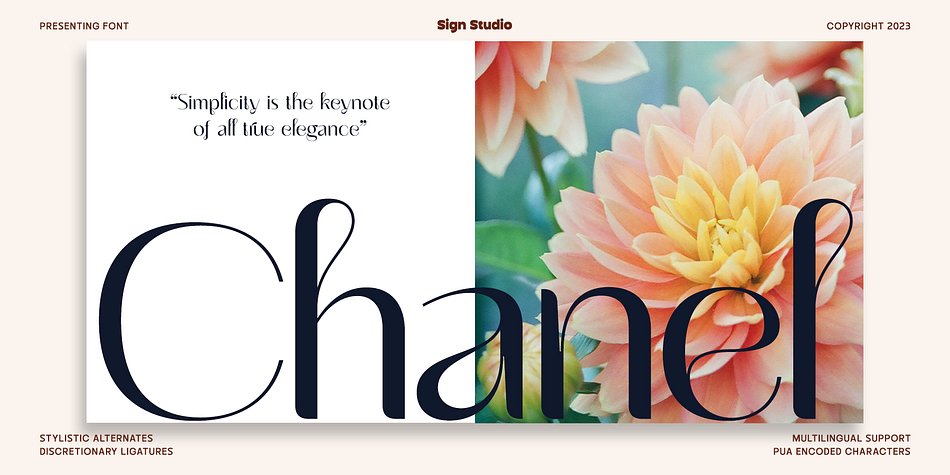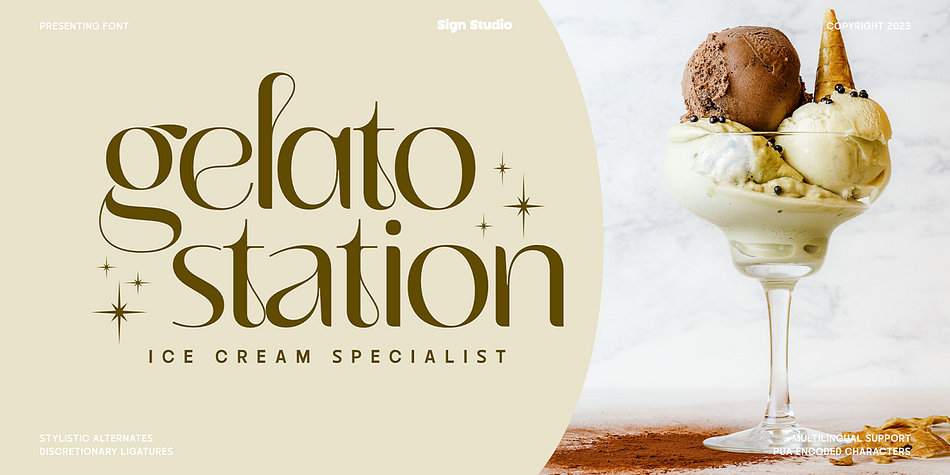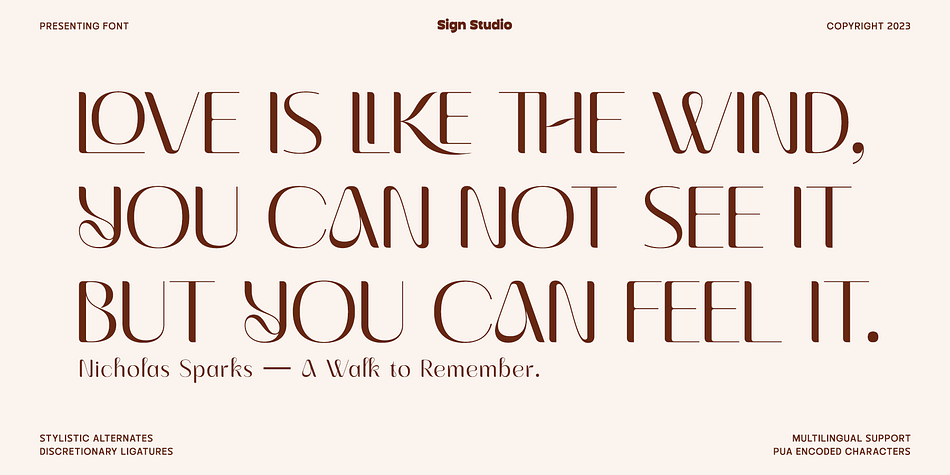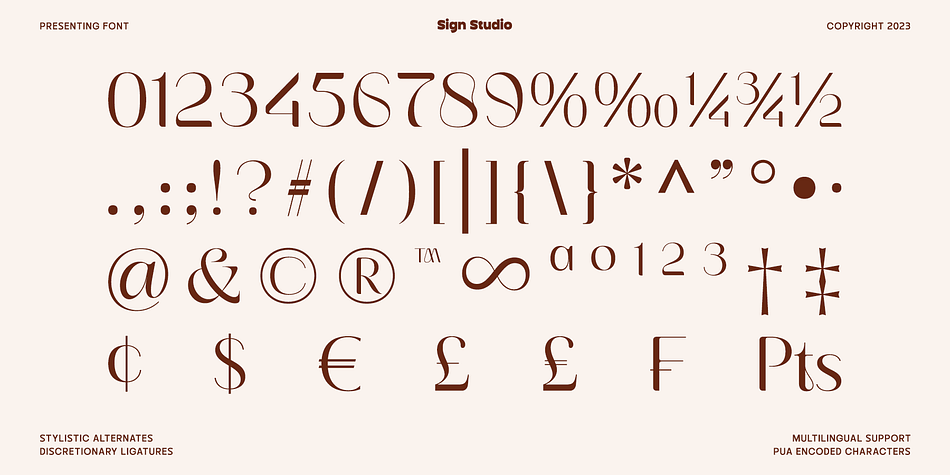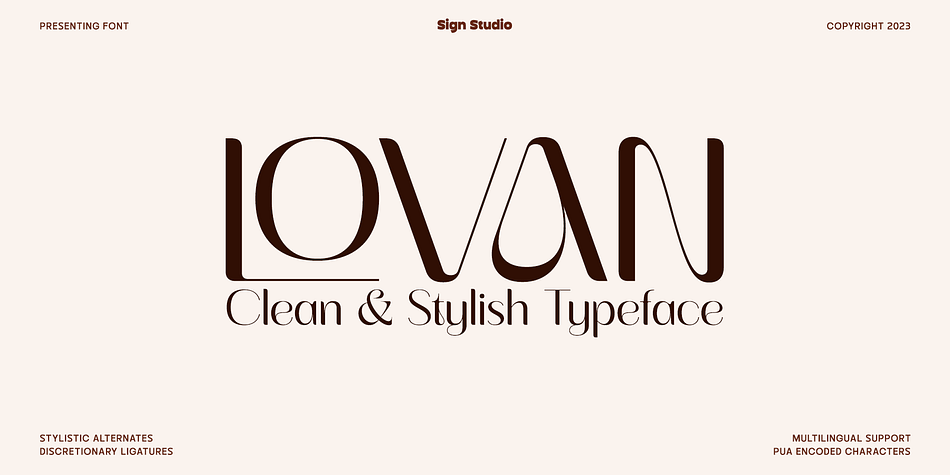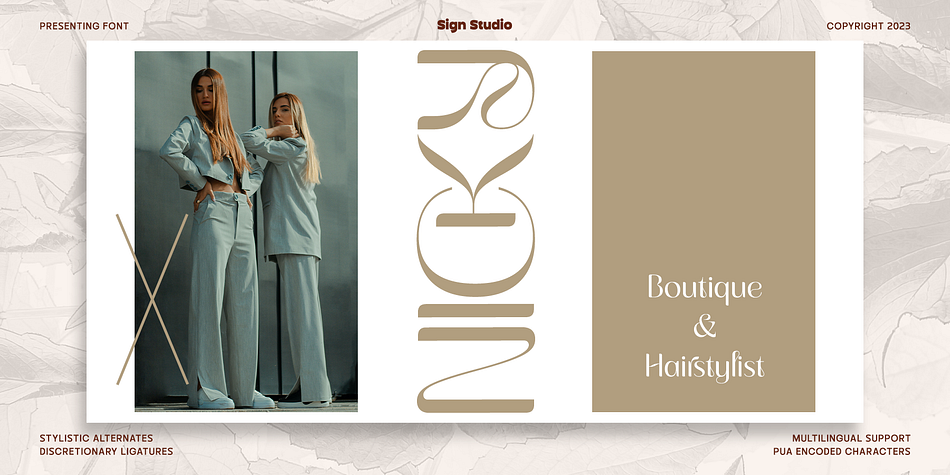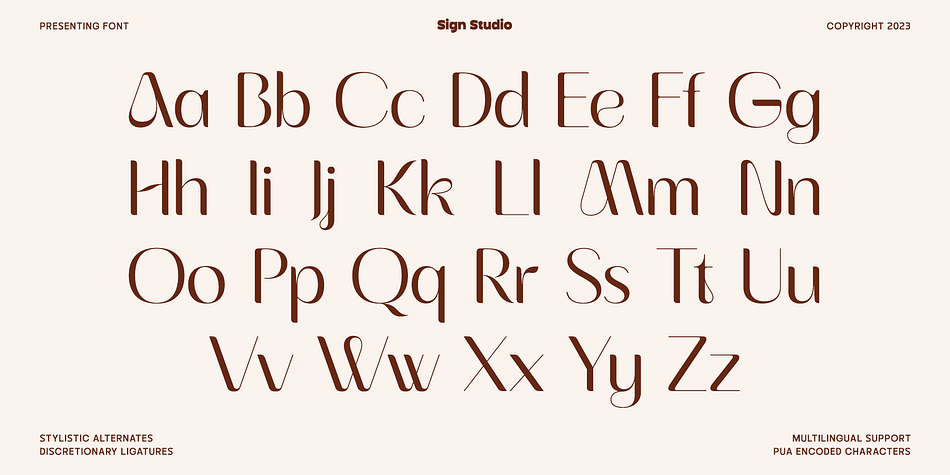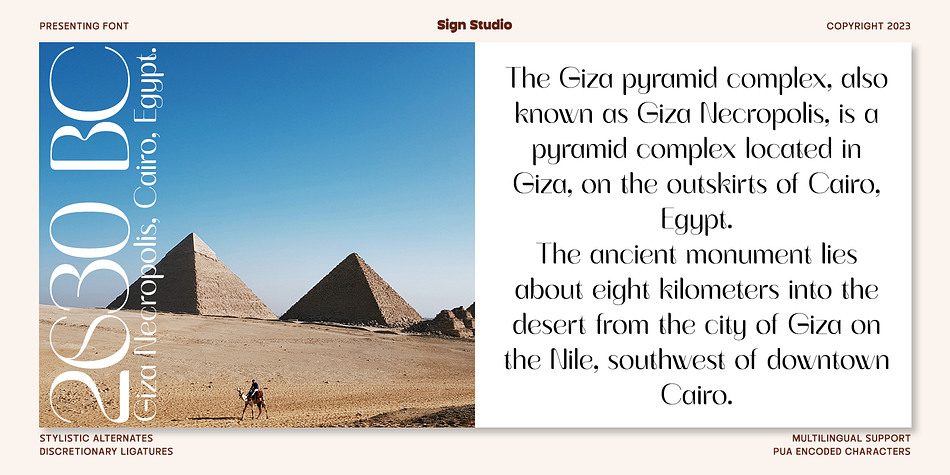
Lovan
Lovan is a display sans font family published by Sign Studio.
Lovan - a Font with a love feel.
A font created to act as a display font. The characters are created uniquely and have high contrast to make them original. The work of deep thought.
Stylish and light will create a balance of casual and elegant typography, good harmony between characters. Lovan clearly has high aesthetic value to be combined with various designs, especially those with a Feminism theme. Even though this font is intended for decoration, it still maintains readability, which is of course the main point of Sign Studio’s work.
Useful OpenType features: Standard Ligatures, Discretionary Ligatures, Alternative Carachters.
The spacing between characters has also been arranged properly through the Kerning process, making for neat text writing.
Support for over 80 languages makes it an excellent communication tool for anyone looking for a versatile yet beautiful font.
Typeface with its beautiful design and good readability, especially equipped with various OpenType features, will elevate creative projects to a higher level when creating personal or commercial projects.